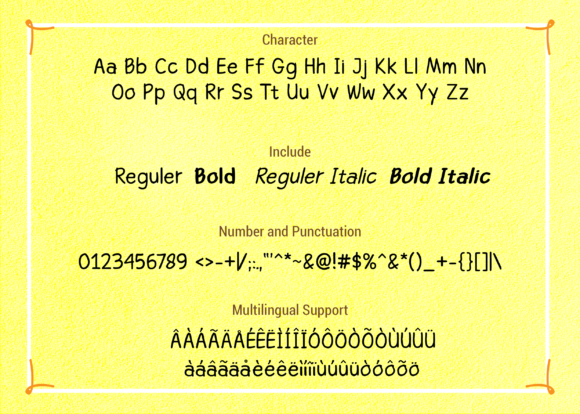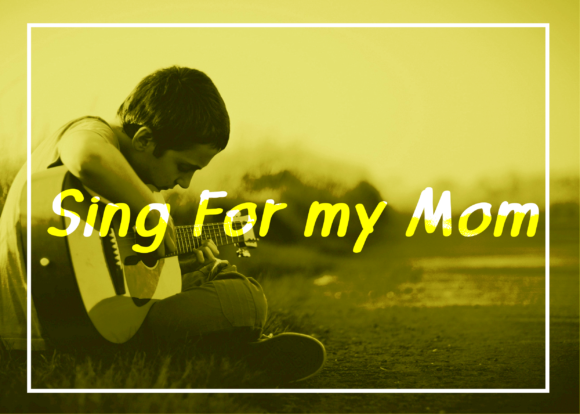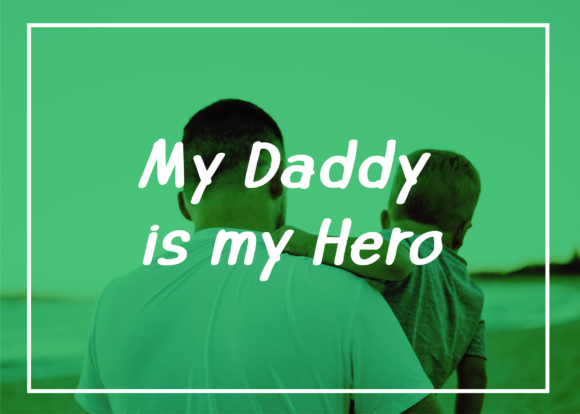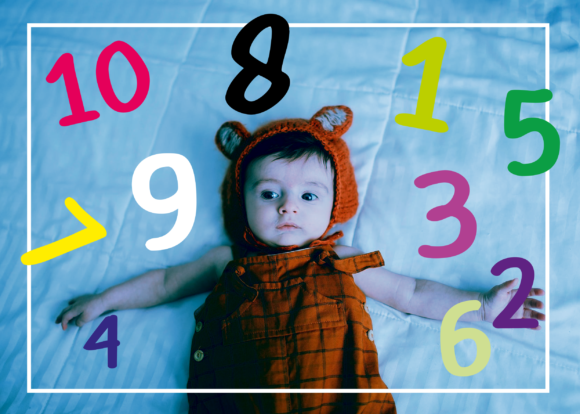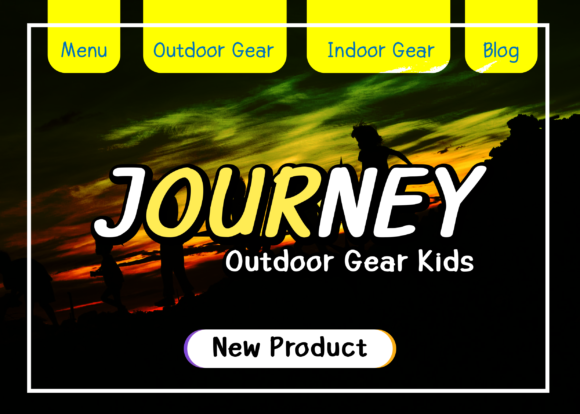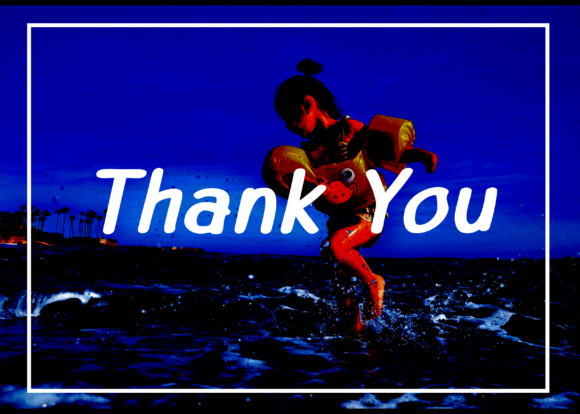
Brother Janu Font
Brother Janu is a beautiful handwritten font that comes in 4 styles. Whether you’re looking for fonts for Instagram or calligraphy scripts for DIY projects, Brother Janu will turn any creative idea into a true piece of art!